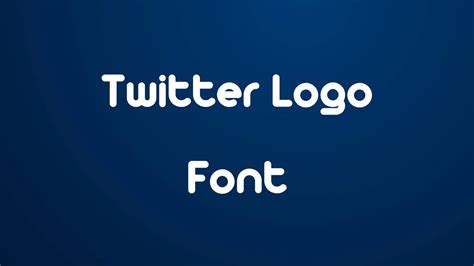
Create Your Twitter Logo: Font Generator Guide
Twitter Logo Font Generator: Your Guide to a Custom Look
Hey guys! Ever wondered how to nail that perfect Twitter logo font for your brand or personal profile? You’re in luck! This guide dives deep into the world of Twitter logo font generators , giving you the lowdown on how to create a unique and eye-catching logo that represents you. We’ll explore the tools, the process, and some killer tips to make your Twitter presence stand out from the crowd. So, buckle up, and let’s get creative! It’s time to transform your online persona with a font that screams you .
Understanding the Basics: Why Font Matters
Alright, before we jump into the fun stuff, let’s chat about why a font is so darn important, yeah? Your Twitter logo, profile picture, and header image are your digital handshake. They’re the first things people see, and they instantly communicate your brand’s personality. Think of it like this: a bold, modern font might scream innovation, while a more classic font can convey trust and reliability. The right font choice goes way beyond just looking pretty; it sets the tone for your entire online presence, affecting how people perceive you or your brand. It’s about crafting an identity that resonates with your audience and leaves a lasting impression. That first glance matters, guys. A well-chosen font can make the difference between someone scrolling past and stopping to learn more about you. So, selecting a font isn’t just a design choice; it’s a strategic move to build your brand identity and attract the right followers. It’s all about making sure your visual voice is heard loud and clear in the bustling world of Twitter. Plus, using a Twitter logo font generator helps you experiment with different styles until you find the perfect fit. Make sure that the font is readable across devices.
The Psychology of Fonts
Okay, let’s dive even deeper, shall we? Did you know that fonts have personalities? Seriously! Every font style evokes different emotions and associations. This is where the psychology of fonts comes into play. Serifs, those little decorative strokes at the end of letters (think Times New Roman), often feel traditional, trustworthy, and established. Sans-serif fonts (like Arial or Helvetica), on the other hand, are perceived as modern, clean, and straightforward. The font you pick sends a subliminal message about your brand’s values, mission, and overall vibe. If you’re going for a fun, playful feel, maybe a rounded font is the way to go. If you’re after a professional and serious tone, consider a clean, geometric sans-serif. Understanding these nuances empowers you to make conscious choices, ensuring your font choice aligns perfectly with your brand identity and attracts the right audience. The correct use of a Twitter logo font generator gives you the opportunity to find the font style that will represent you.
Font Pairing and Consistency
Now, let’s talk about font pairings and maintaining consistency. When creating a Twitter logo, it’s not just about picking one font; it’s about finding fonts that work well together. Think of it as a team. You want a star player (your primary font) and maybe a supporting cast member (a secondary font) to complement it. The key here is balance and harmony. If your primary font is bold and eye-catching, consider a simpler, more understated secondary font for things like your username or any tagline you include in your logo. This avoids visual overload and ensures everything is readable. Consistency is also super important. Once you’ve chosen your fonts, use them consistently across your Twitter profile, website, and other marketing materials. This builds brand recognition and reinforces your identity in people’s minds. Keep everything aligned and unified. The consistent use of fonts builds trust and credibility. Also the Twitter logo font generator you use will allow you to see how everything looks together.
Exploring Twitter Logo Font Generators: Top Tools
Alright, let’s get into the good stuff: the tools! There are tons of Twitter logo font generators out there, and each one has its own cool features and capabilities. Here are a few top picks to get you started.
Free Logo Generators
For those of you on a budget (and who isn’t, right?), free logo generators are a fantastic starting point. These tools often come with pre-designed templates, font options, and basic customization features. You can quickly whip up a logo without spending a dime. However, keep in mind that the free versions often have limitations, such as restricted font choices or watermarks. This is not a problem. Some of the most popular free logo generators include Canva, LogoMakr, and DesignEvo. Each of them has a range of free font options, and they’re super user-friendly. These tools are perfect for beginners or anyone looking for a quick and easy solution. Many will allow you to download your logo in various formats, ready to use on your Twitter profile. You can start with your design, making sure you like the logo before you start spending money. The Twitter logo font generator is one of the ways to begin your logo.
Premium Logo Design Services
If you’re after a more polished and professional look, or if you need advanced features and customization options, premium logo design services might be your best bet. These services typically offer a wider selection of fonts, design tools, and the ability to tailor your logo to your specific needs. You’ll often have access to higher-resolution files and more flexible usage rights. Popular premium options include Tailor Brands, Looka, and Hatchful. While these services come with a price tag, they often provide a higher level of design quality and customization. These premium services allow you to create a logo that perfectly reflects your brand’s personality and values. They are a good idea if you are using your logo for business or commercial use. These tools let you refine your design, ensuring it’s pixel-perfect. Remember, spending a bit more can often pay off in the long run by giving your brand a more professional and visually appealing image. Also, some Twitter logo font generators offer premium subscription options.
Step-by-Step: Using a Twitter Logo Font Generator
Okay, guys, let’s get practical! Here’s a step-by-step guide on how to use a Twitter logo font generator , ensuring you get the most out of it.
Choosing Your Tool
First things first: pick your tool. Do a little research, read some reviews, and try out a few free options to see which one you like best. Consider factors like ease of use, font options, and customization capabilities. Make sure that the tool aligns with your budget and design needs. It’s all about finding the right fit for you. Once you’ve selected your tool, create an account if required, and then get ready to design.
Inputting Your Brand Name and Slogan
Next, type in your brand name and any slogan or tagline you want to include in your logo. Experiment with different variations and arrangements to see what looks best. Many generators allow you to preview your text with various fonts, colors, and layouts. The goal is to ensure your brand name and slogan are both legible and visually appealing. Play around with different options until you get the perfect combination. Once you’re satisfied, move on to the next step.
Selecting Fonts and Customizing Your Design
This is where the fun begins! Browse through the font options, and select the ones that best represent your brand’s personality. Don’t be afraid to try out different combinations until you find a font that resonates with you. Many generators will allow you to customize the color, size, and spacing of your text. You can add shapes, icons, and other design elements to enhance your logo. Take your time to experiment and create something that is uniquely yours. If you’re not a graphic designer, these tools make it super easy, even if you don’t have experience. If you are having trouble, the Twitter logo font generator may have a tutorial to help you.
Conclusion: Making Your Mark on Twitter
And there you have it, guys! With the right tools and a little creativity, you can create a fantastic Twitter logo that truly represents you. From exploring different Twitter logo font generators to understanding the psychology of fonts, we’ve covered everything you need to know. Remember, your logo is a crucial part of your online identity, so take the time to get it right. So get out there, experiment with the tools, and design a logo that makes your Twitter profile shine. Happy designing! You got this!